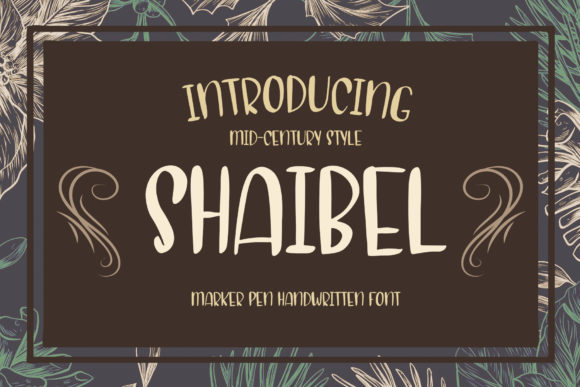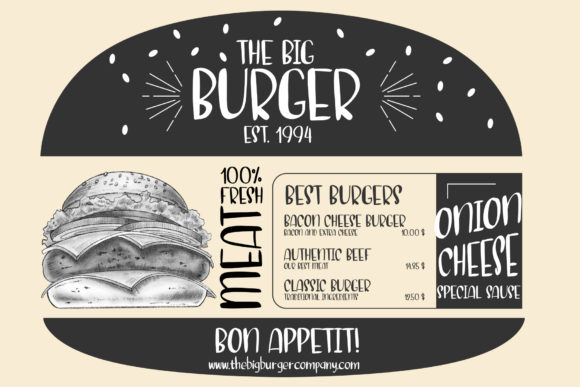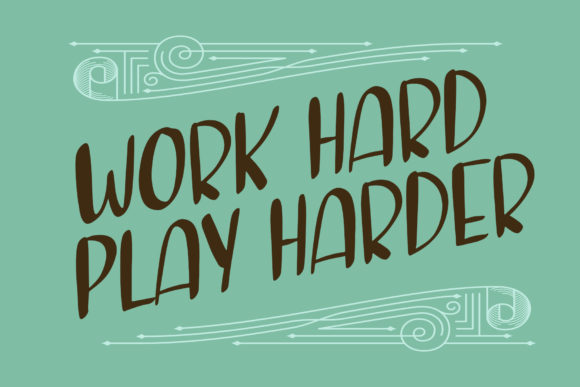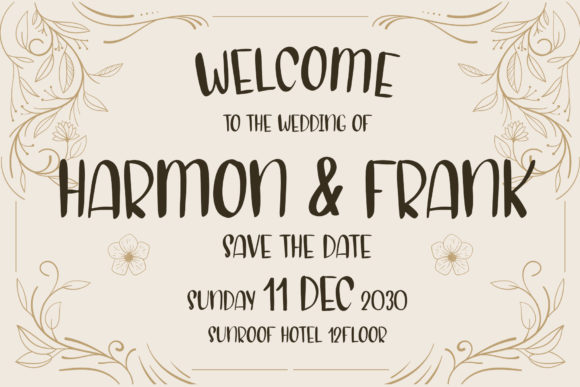
About Shaibel Font
Shaibel is a fun and stylish handwritten font. It is suitable for any branding, product packaging, invitation, quote, t-shirt, label, poster, logo that you wish to develop.